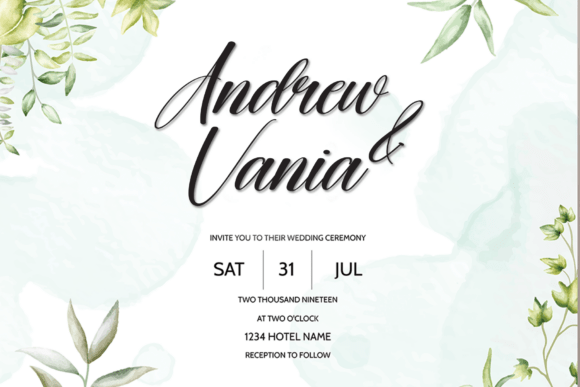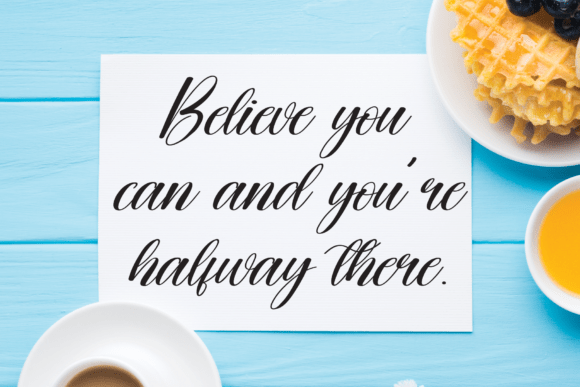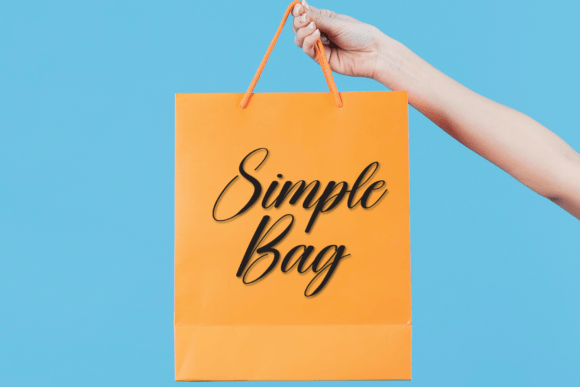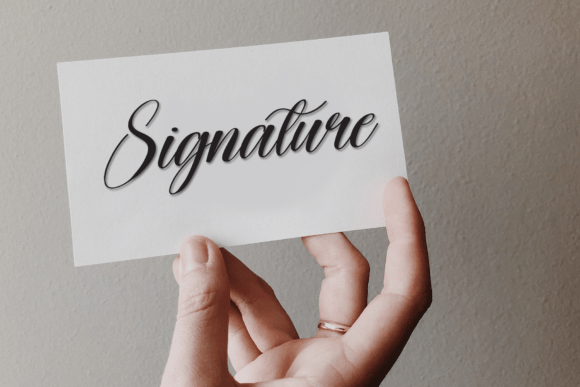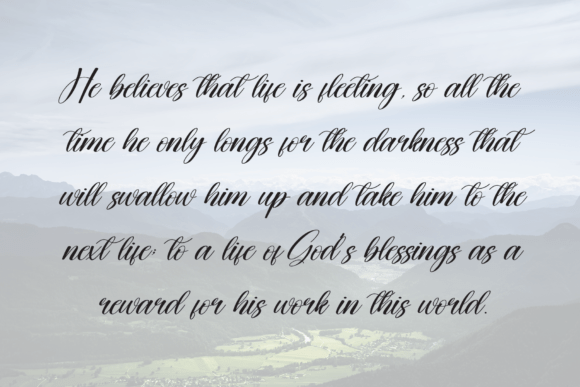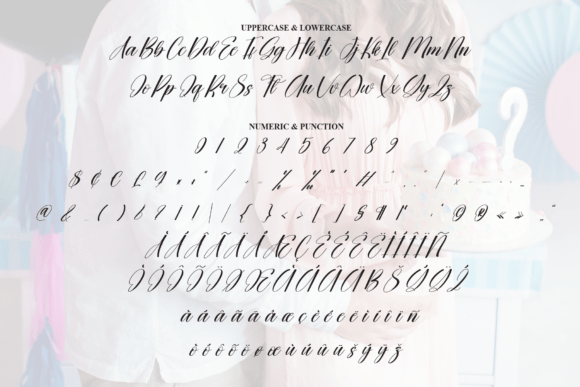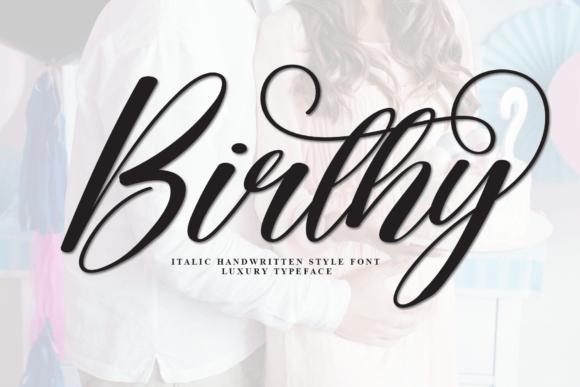
The Moment That Made Me Fall in Love with Birthy Font
As a designer, there’s nothing quite like that ‘aha’ moment when you stumble upon a font that perfectly captures the essence of your vision. For me, it was the first time I laid eyes on Birthy Font – a stylish script font that exudes elegance and contemporary charm. I was immediately drawn to its graceful strokes, fluid curves, and carefully crafted letterforms that seemed to dance across the page.
Birhy Font is more than just a pretty face, though – it’s a versatile tool designed to elevate any design project. Whether you’re creating logos, invitations, packaging, or social media graphics, Birthy Font adds a refined and sophisticated touch that’s sure to leave a lasting impression. Its natural flow and polished details make it a valuable asset for designers looking to take their work to the next level.
Review of Birthy Font
Overall, I have mixed feelings about the Birthy Font. While it’s certainly a unique and eye-catching choice, there are some limitations that prevent it from being a top pick for me. ✨
- The Birthy Font’s playful, whimsical feel is perfect for children’s books, nursery decor, or any project that requires a sense of wonder.
- The font’s versatility makes it suitable for both digital and print applications, from social media graphics to posters and signage.
- The font’s high-quality design ensures that it looks crisp and clear at various font sizes and resolutions.
- ⚠️ The Birthy Font’s unconventional design may not be suitable for formal or professional projects, as it may come across as immature or unpolished.
- ⚠️ The font’s complex letterforms can be difficult to read in certain situations, such as when displayed in small sizes or in low-contrast environments.
- ⚠️ The font’s limited character set may not be sufficient for projects that require a wide range of characters, such as multilingual documents or technical writing.
Overall, I think the Birthy Font is a great choice for projects that require a touch of whimsy and playfulness. However, it may not be the best fit for every project, and users should carefully consider its limitations before making a decision.
Introduction to Birthy Font
Birthing Font is a playful, whimsical script font perfect for creating eye-catching and unique designs. In this guide, we’ll explore how to use it in various design platforms, provide tips for getting the most out of it, and showcase common use cases.
Tips for Getting the Most Out of Birthy Font
Here are some tips for getting the most out of Birthy Font:
- Pair Birthy Font with other playful fonts for a unique look.
- Use Birthy Font to create custom titles, headings, and quotes.
Common Use Cases for Birthy Font
Here are some common use cases for Birthy Font:
- Baby shower invitations and decorations.
- Quirky